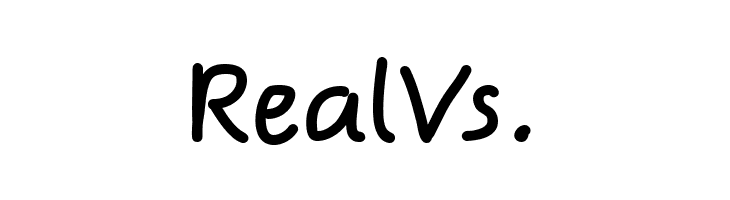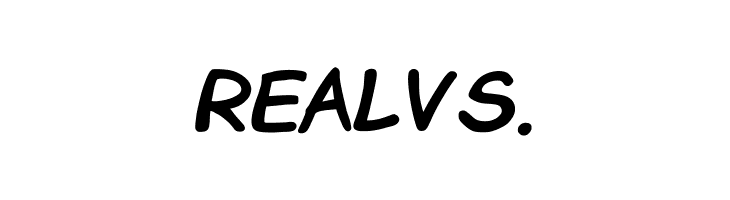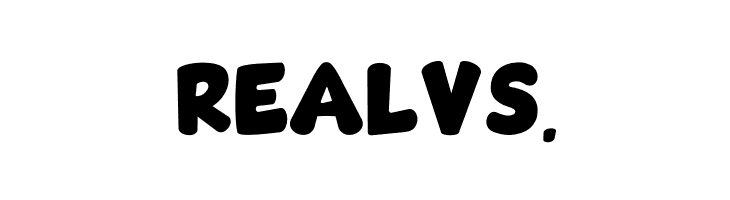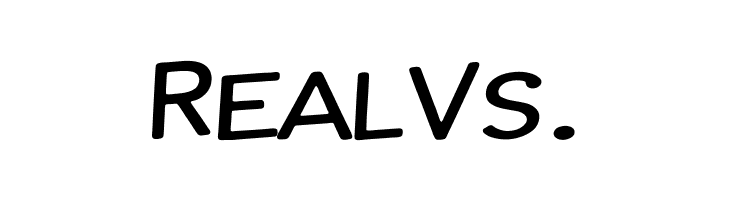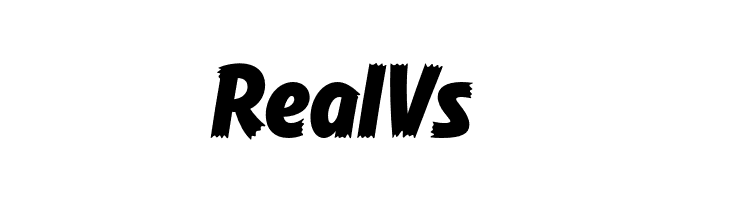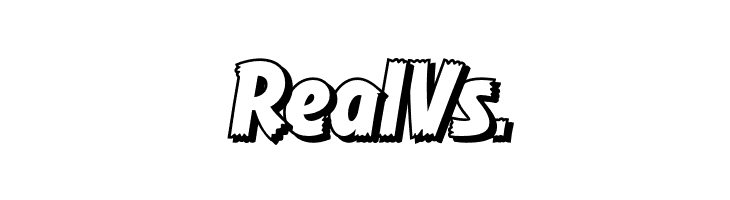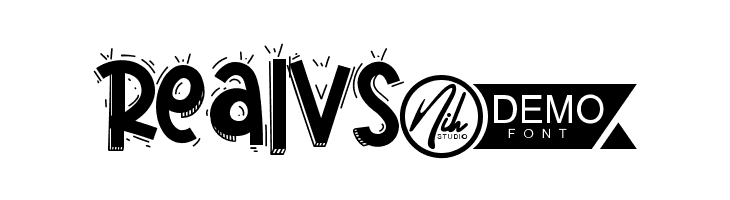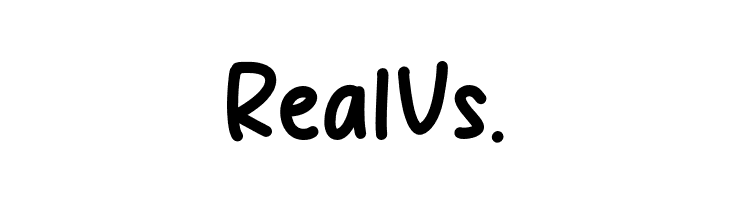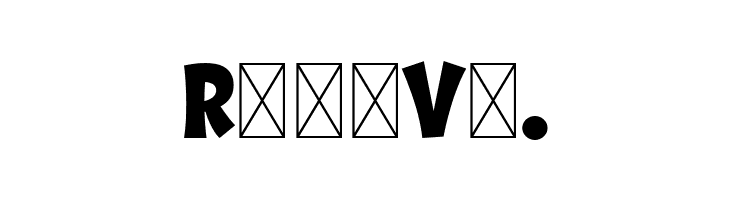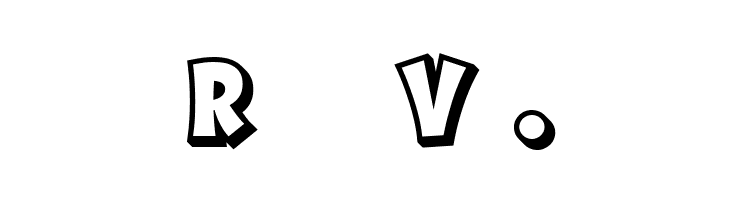
• Comic Boom Elements_DEMO
A vibrant set of comic-style elements with explosive words and dynamic shapes.
• Comic Boys
A playful, handwritten font with rounded edges and a casual style.
• Comic Boys
A playful, handwritten-style font with smooth, rounded strokes.
• Comic Chuck
( Fonts by Chuck Nagillum )
A playful, hand-drawn style font with a comic book feel.
• Comic Chuck
( Chuck Nagillum )
A bold, handwritten font with a playful and casual style.
• COMIC CIRCUIT
A futuristic, geometric font with a digital, circuit-inspired design.
• Comic Cover
A playful, bold font with exaggerated serifs and whimsical curves.
• Comic Crayon Demo
( Fonts by NihStudio )
A bold, comic-style font with crayon-like texture and playful design.
• Comic Cup
A playful, hand-drawn font with rounded, bold characters and a casual vibe.
• Comic Dandy
( Fonts by Davy Meykens - davymeykens.deviantart.com )
A bold, geometric font with a playful and quirky style.
• Comic Dylans
A bold, playful font with exaggerated, uneven strokes and a whimsical, cartoonish style.
• Comic Dylans
( Fonts by StringLabs Creative Studio )
A playful, bold font with whimsical, hand-drawn letterforms.
• Comic Fade Regular
A playful, dotted font with a whimsical and creative style.
• Comic Filled Marta Van Eck
• Comic FX
• Comic Gecko
( Fonts by MaknaStudio )
A playful, bold font with rounded, thick strokes and a whimsical style.
• Comic Gecko Pro
A bold, playful font with rounded, cartoonish characters.
• Comic Gibi
A playful, comic-style handwritten font with rounded, medium-thick strokes.